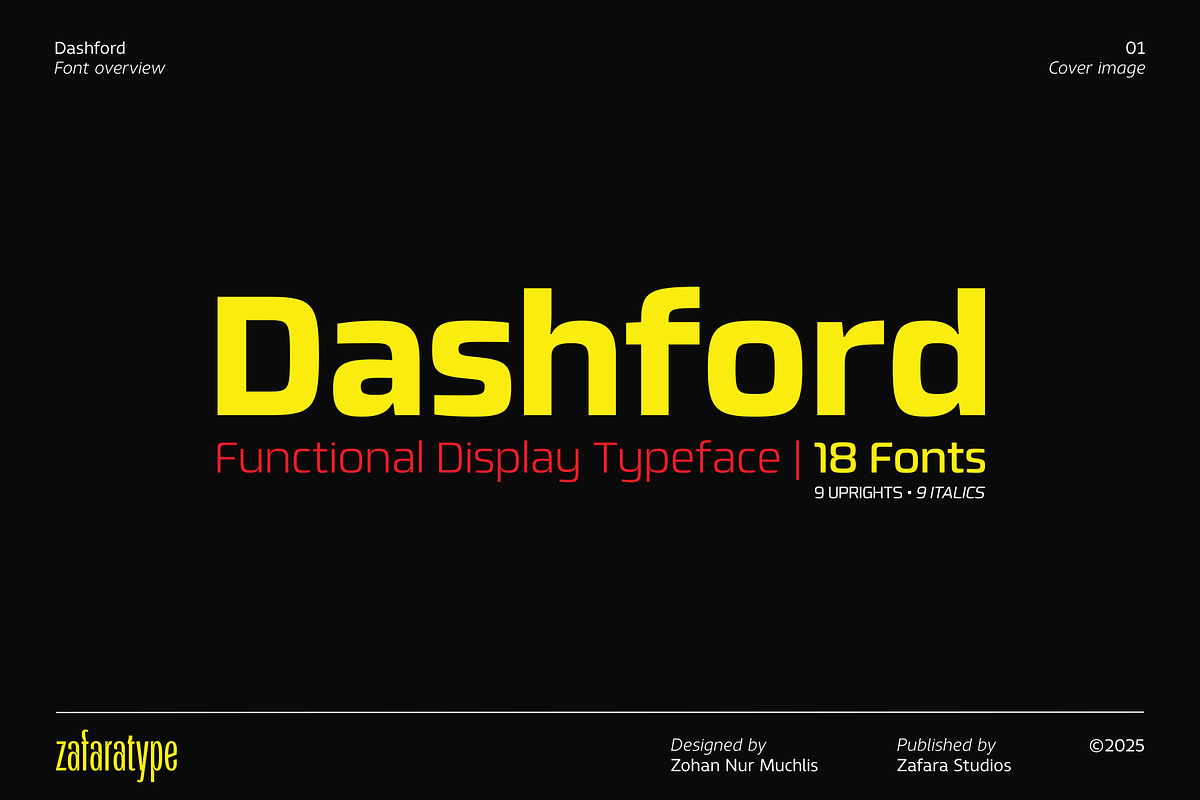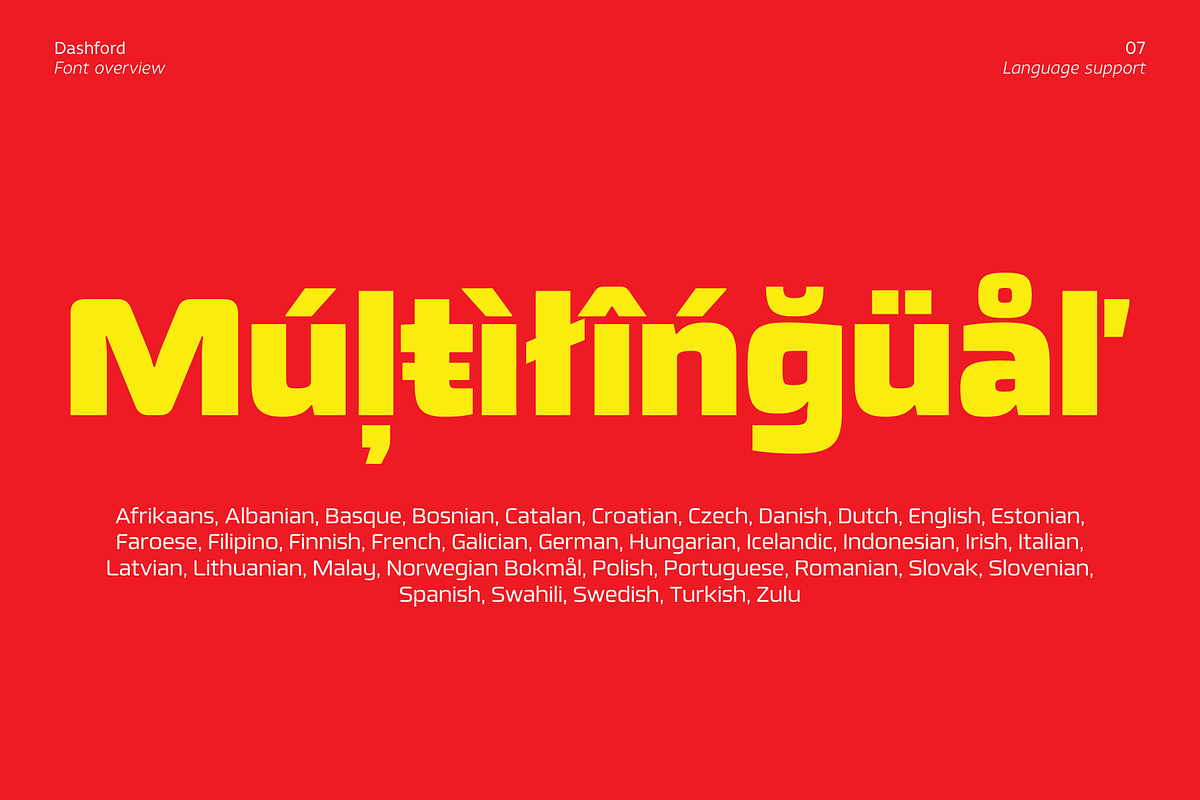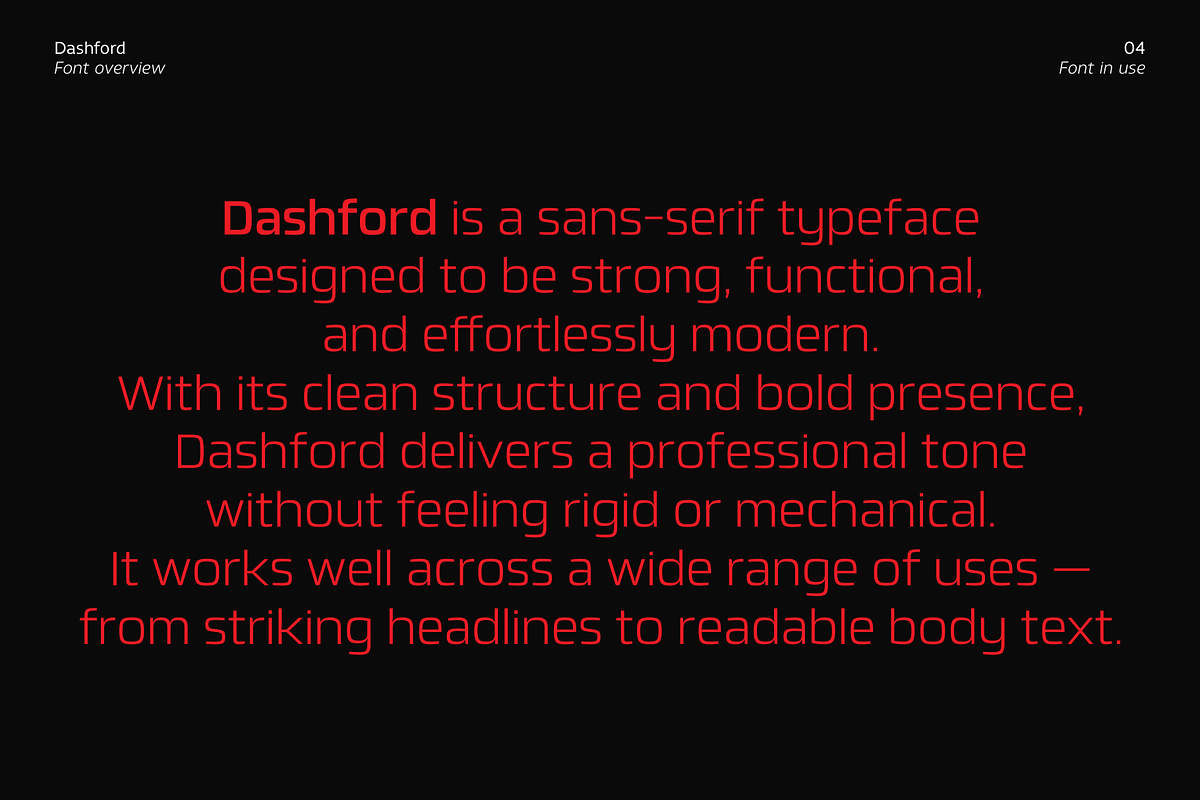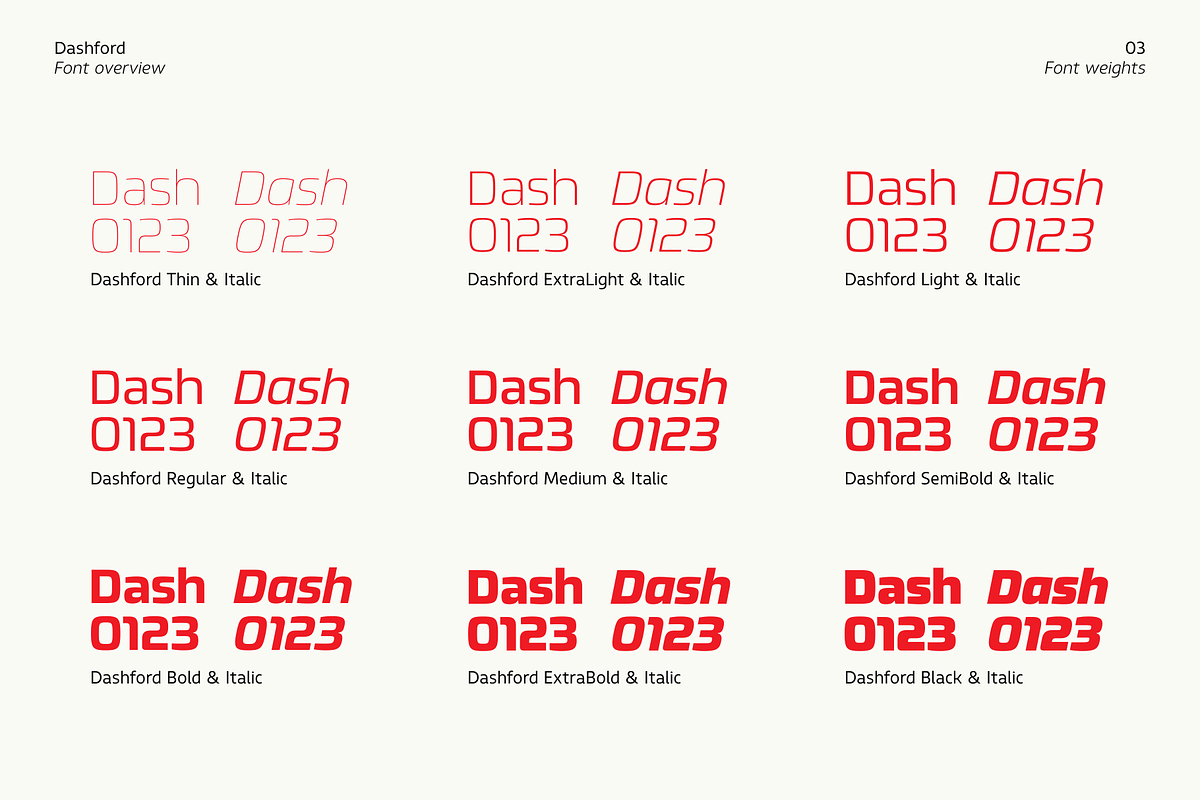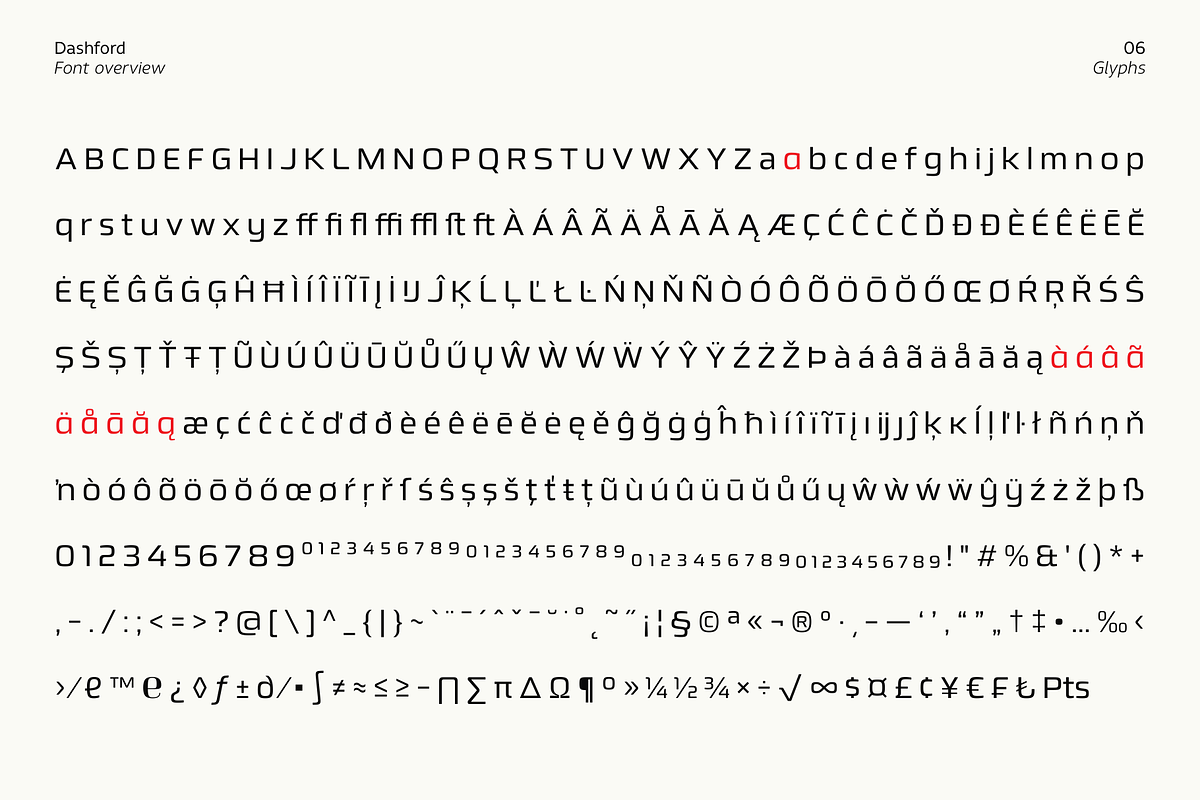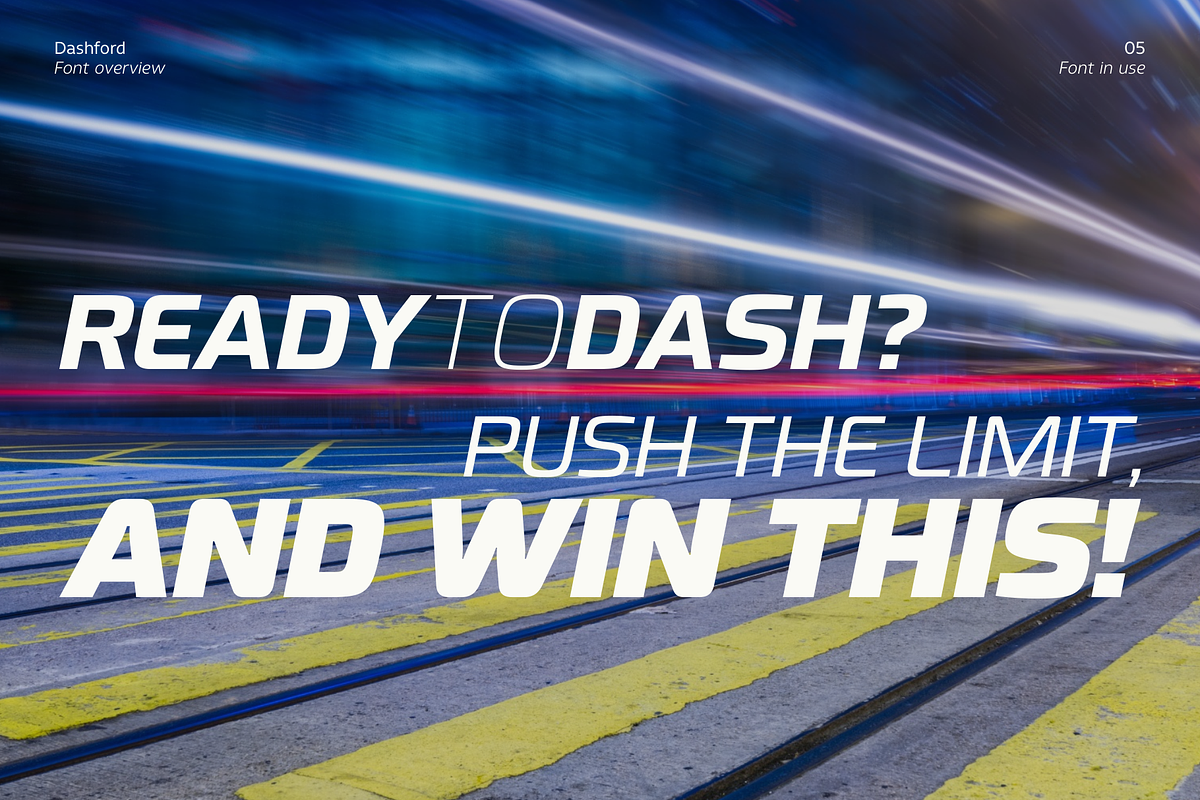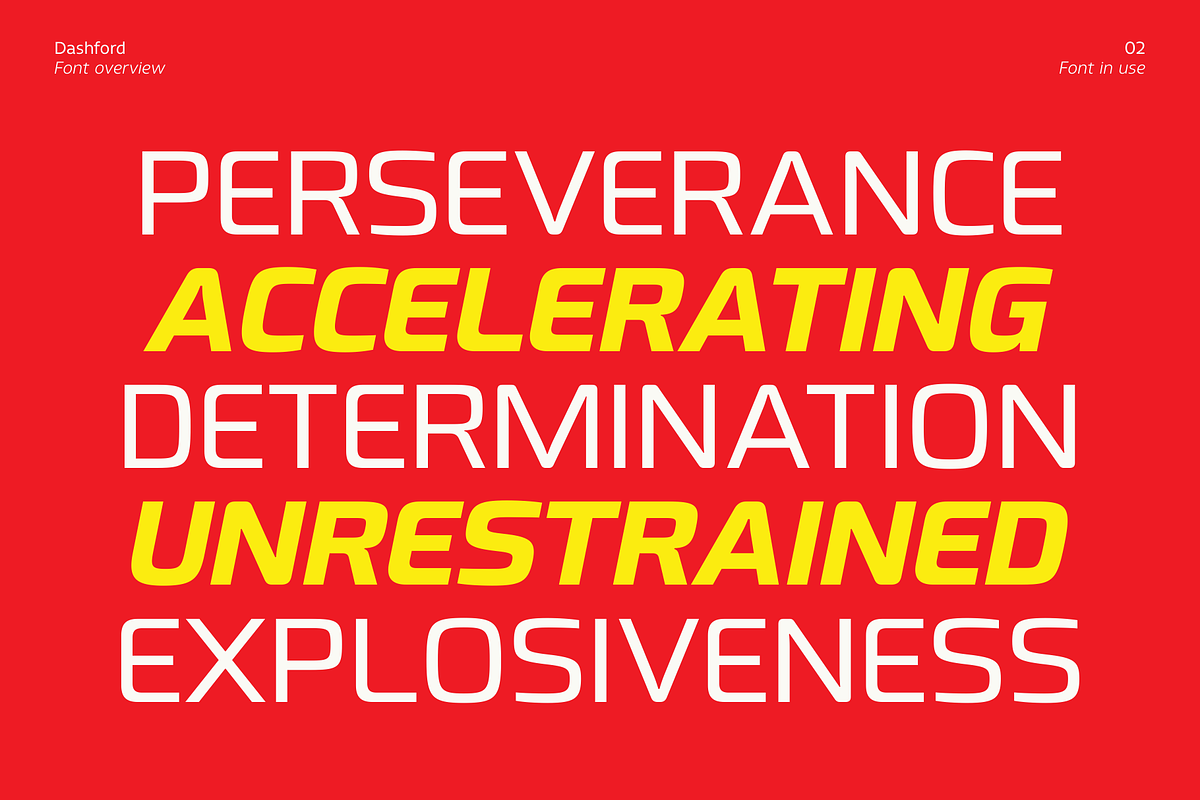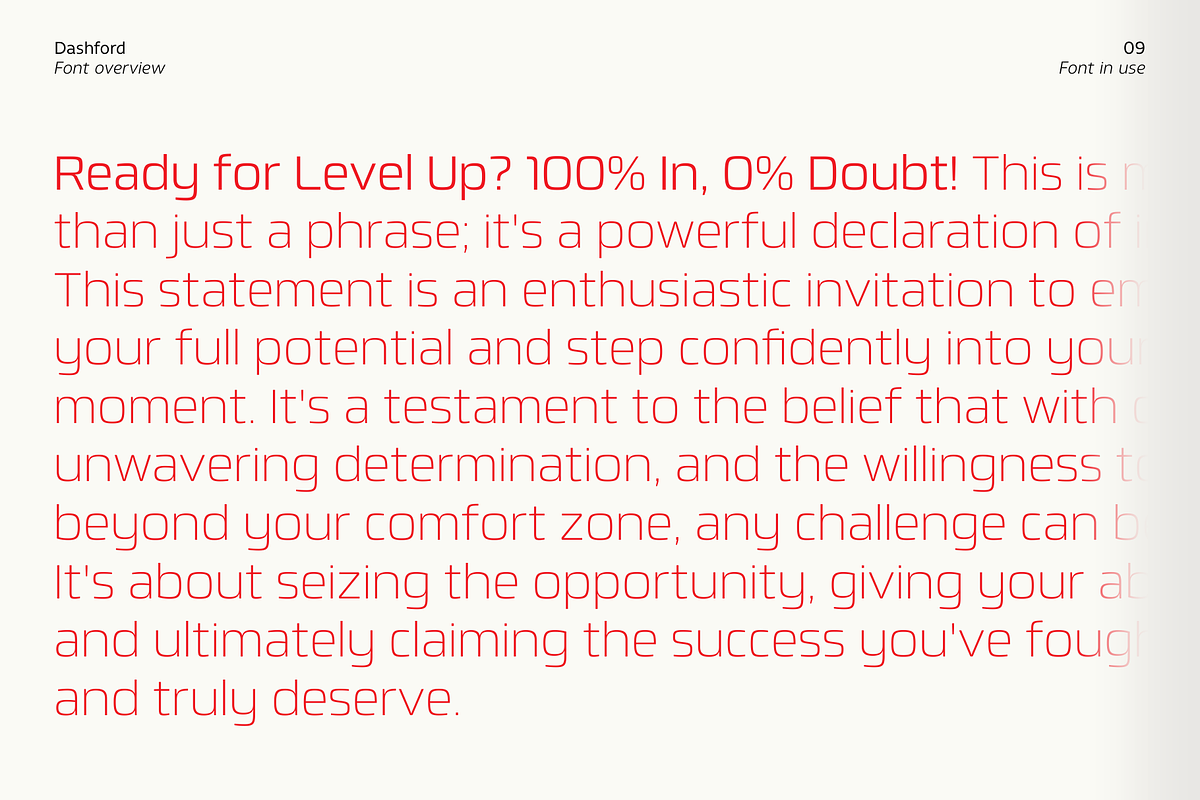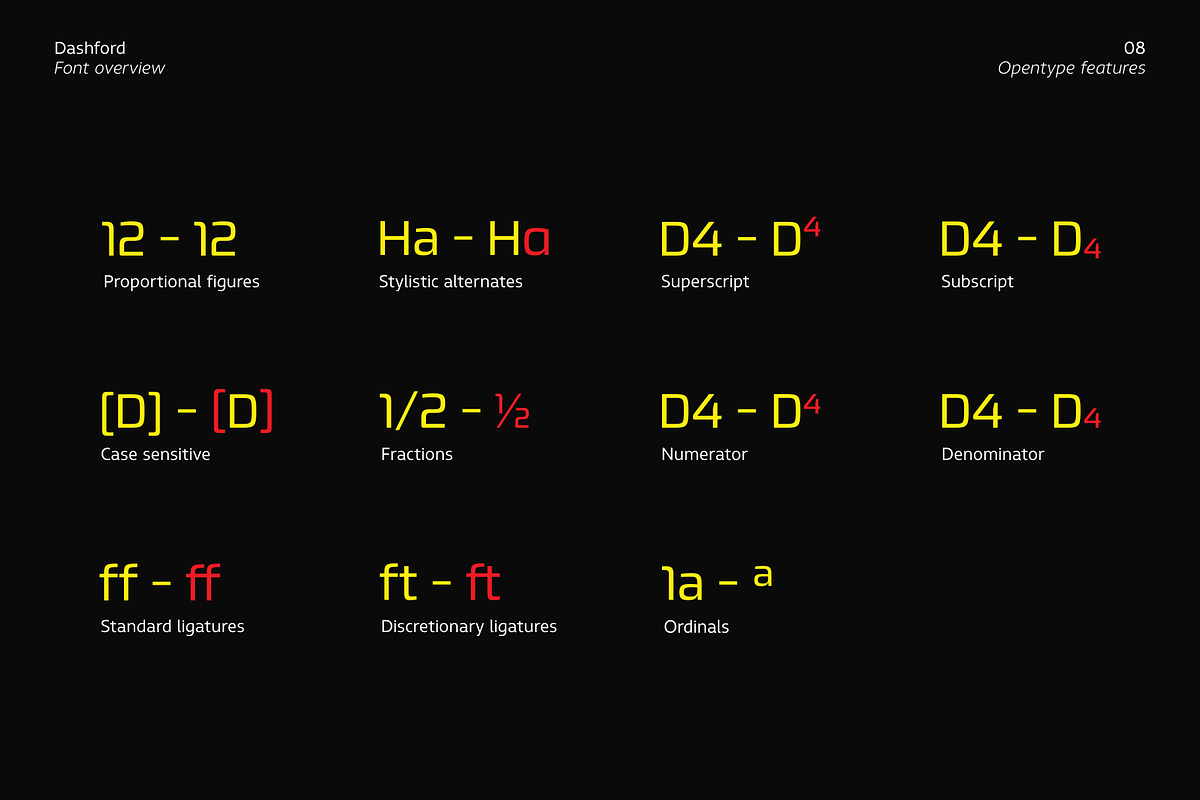
Dashford
Dashford is a sans-serif typeface designed to be strong, functional, and effortlessly modern. With its clean structure and bold presence, Dashford delivers a professional tone without feeling rigid or cold.
It performs well across a wide range of applications — from striking headlines to highly readable body text. Featuring nine upright weights and nine matching italics, Dashford offers full flexibility for building consistent, responsive design systems.
Its design blends solid geometric foundations with a subtle technological touch, making it an excellent choice for today’s visual needs — including branding, digital interfaces, editorial layouts, signage, and packaging.
Each style includes 456 glyphs, supporting Extended Latin character sets and 36 languages, including: Afrikaans, Albanian, Basque, Bosnian, Catalan, Croatian, Czech, Danish, Dutch, English, Estonian, Faroese, Filipino, Finnish, French, Galician, German, Hungarian, Icelandic, Indonesian, Irish, Italian, Latvian, Lithuanian, Malay, Norwegian Bokmål, Polish, Portuguese, Romanian, Slovak, Slovenian, Spanish, Swahili, Swedish, Turkish, and Zulu.
Dashford is a reliable choice for designers seeking a typeface that balances strength with clarity — perfect for projects that demand a modern, trustworthy, and ready-to-use visual tone.